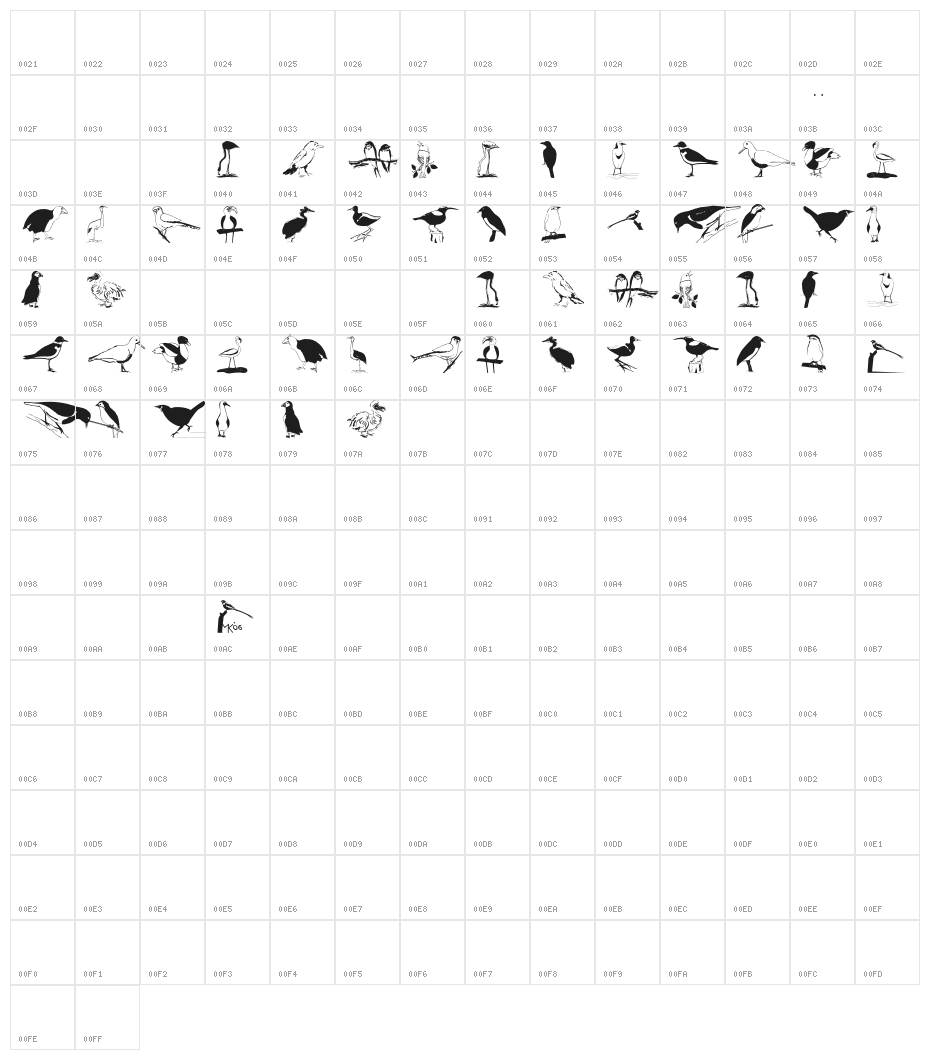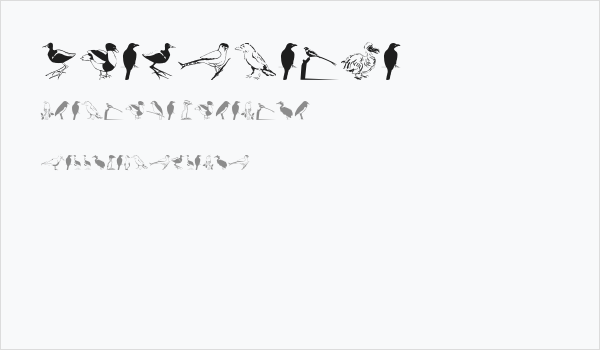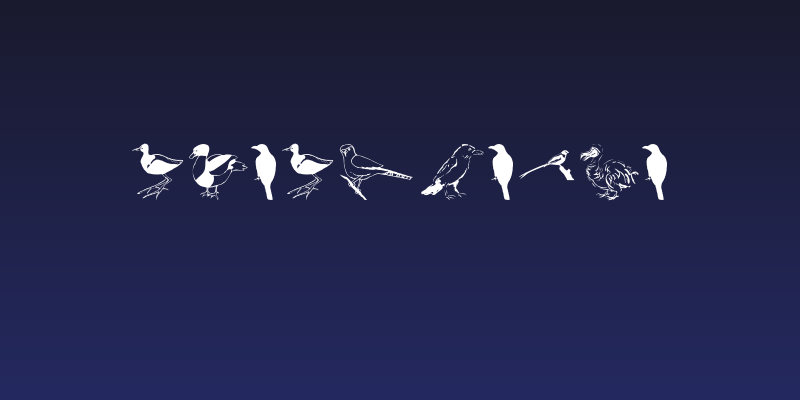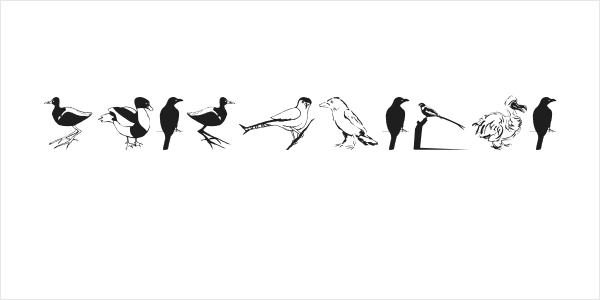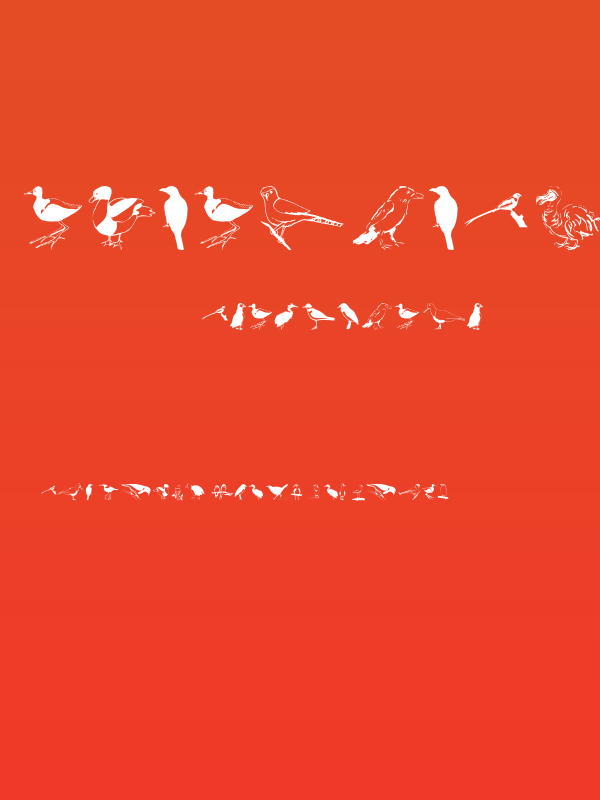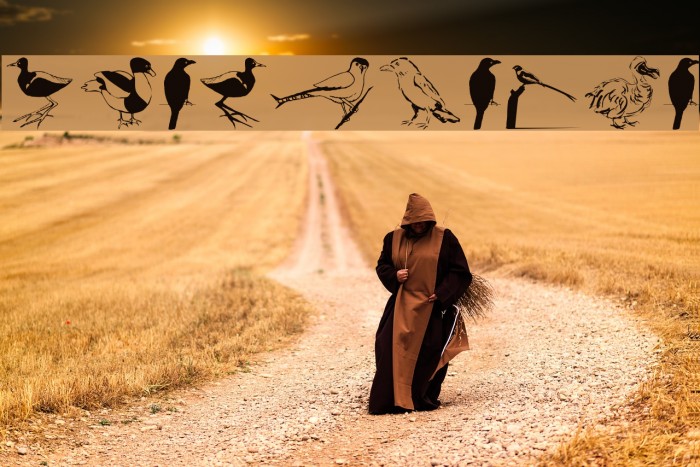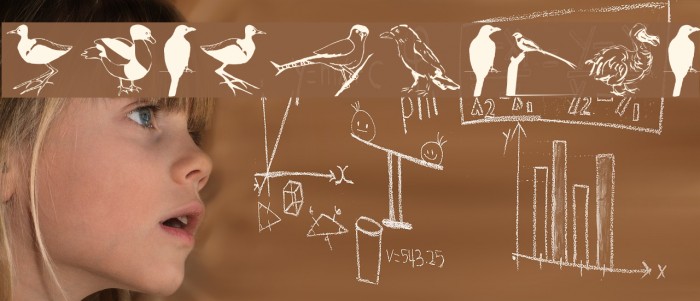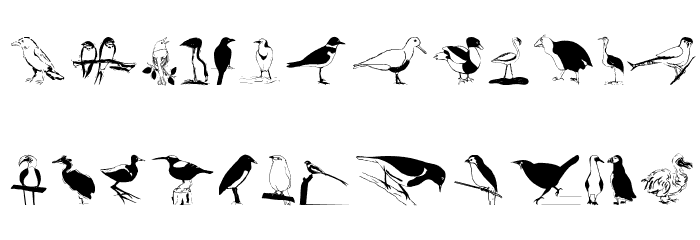
Piepmaetze2006 Font
Piepmaetze2006 Description
A decorative display font featuring stylized bird illustrations representing each character, with unique bird poses and silhouettes for every letter, number, and symbol. The characters are highly pictorial and lack traditional typographic features, focusing on visual representation rather than legibility.
| Overall Style | Decorative, Whimsical, Nature-inspired |
| Use Case | Logos, Posters, Headlines, Themed graphics |
| Proposed Projects | Children’s books, nature-themed posters, educational materials, creative branding, event invitations. |